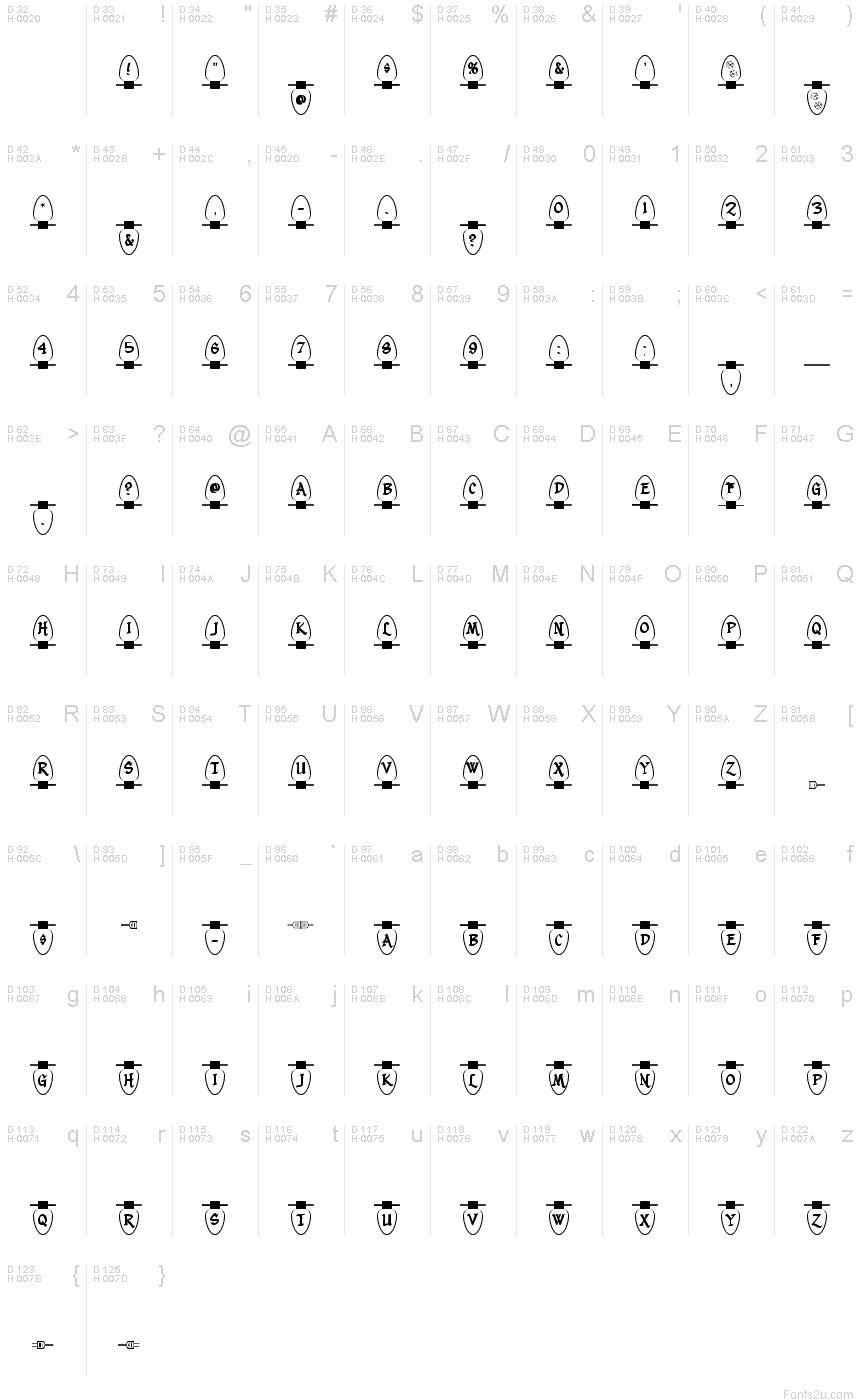
Christmas Lights Indoor
Christmas Lights Indoor font by R. Gast is a free decorative holiday display typeface that strings every letter inside a chunky Christmas bulb. The bold outlines, dangling cord, and slightly gothic letterforms feel like hand-drawn lights taped across a cozy living room wall. It has a playful, crafty look that still reads clearly at medium sizes, making each word feel like part of a festive garland.
Using Christmas Lights Indoor, you can instantly dress up seasonal projects-think greeting cards, party invitations, classroom handouts, website banners, social posts, and gift tags. This free font shines when used as a headline or short phrase, with a clean sans serif for body text to keep layouts readable. Try it large and generously spaced so each bulb has room to glow.